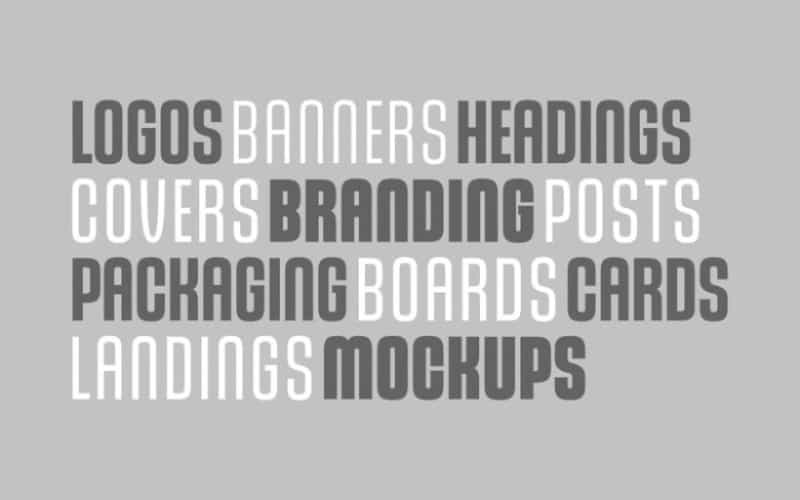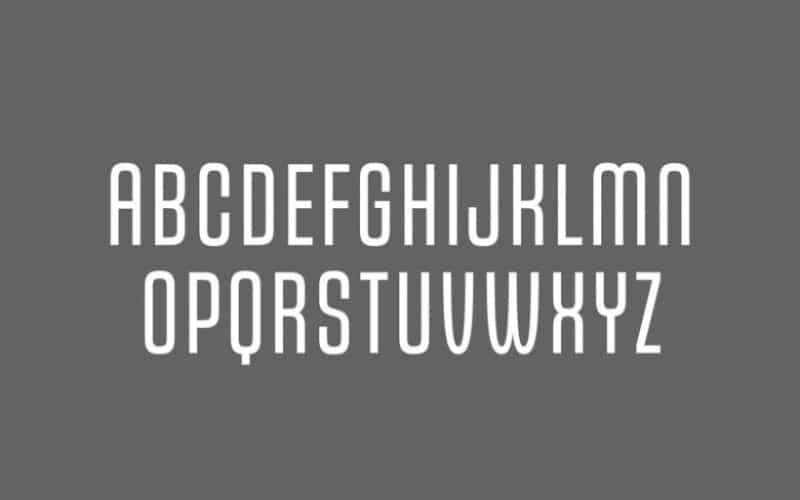
Aureola is an elegant sans serif font. Aureola’s sharp lines and edges make it the ideal font choice for bridal ceremonies, logo prints, quotes, signage and much more! Additionally, its various weights make it suitable for branding purposes on websites as well. Aureola looks particularly beautiful when spaced closer together.